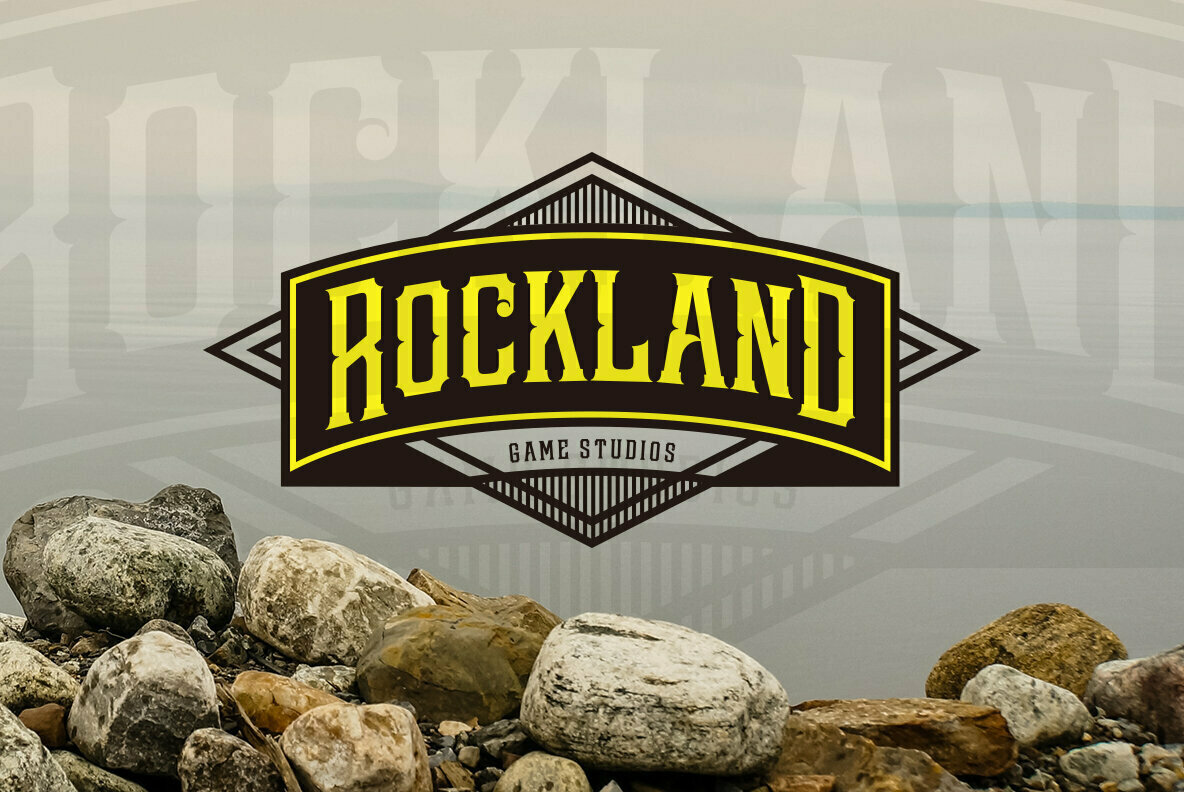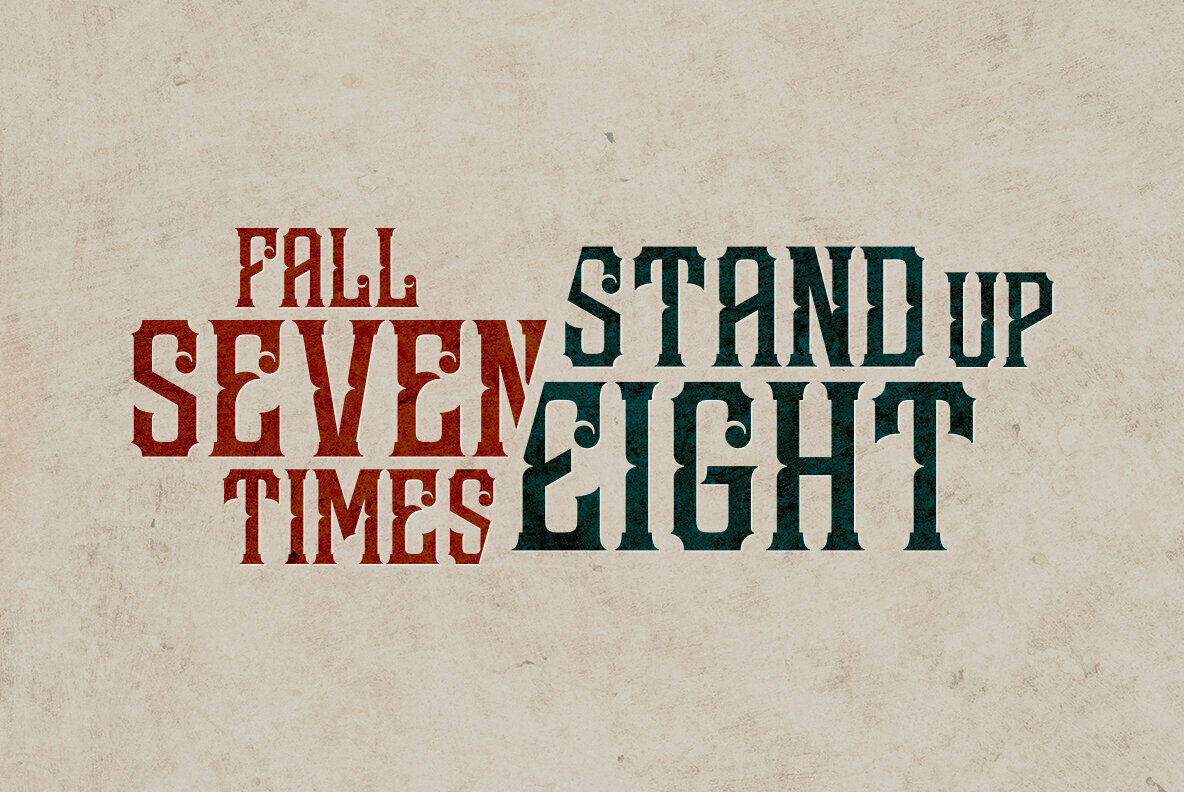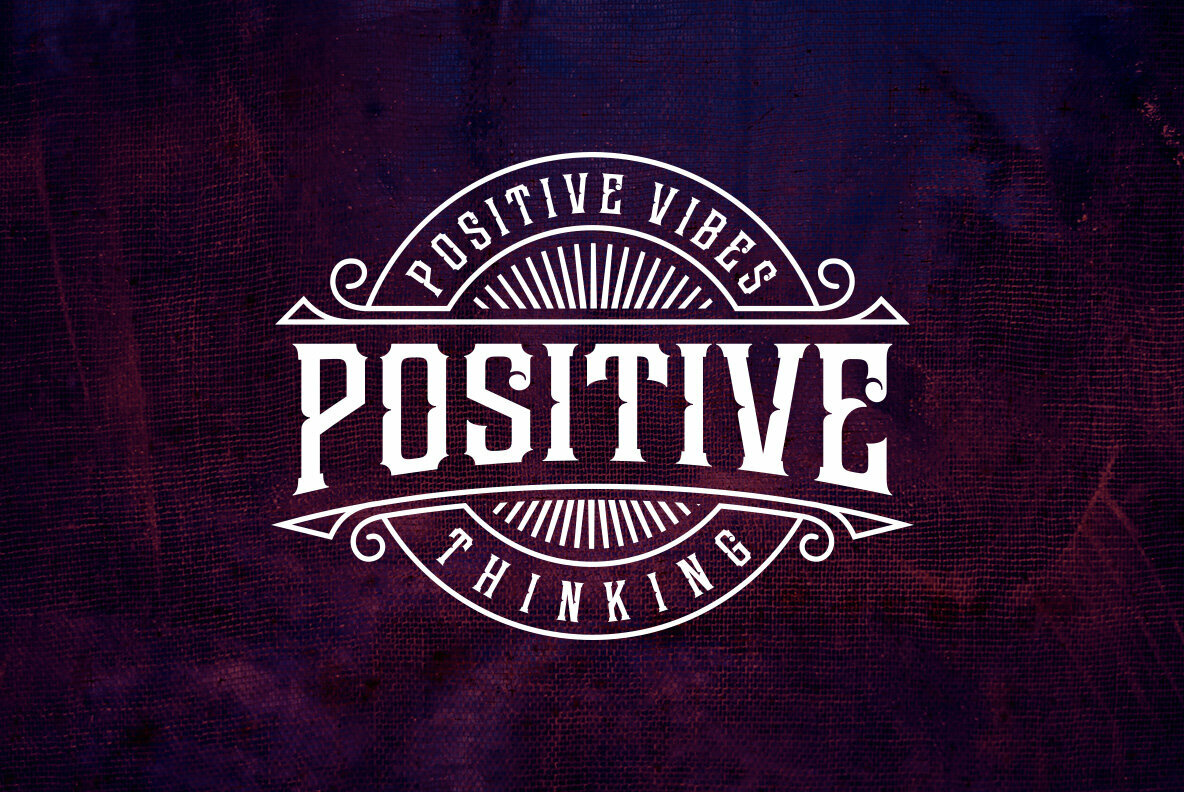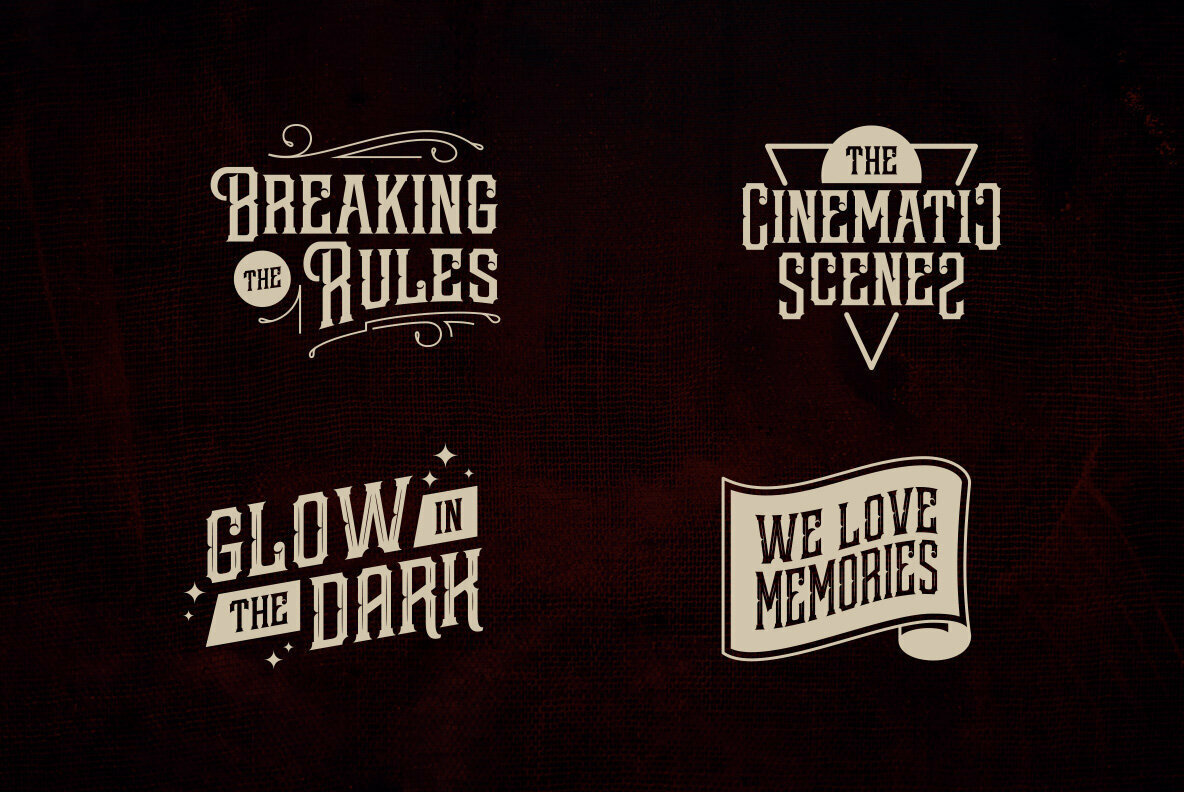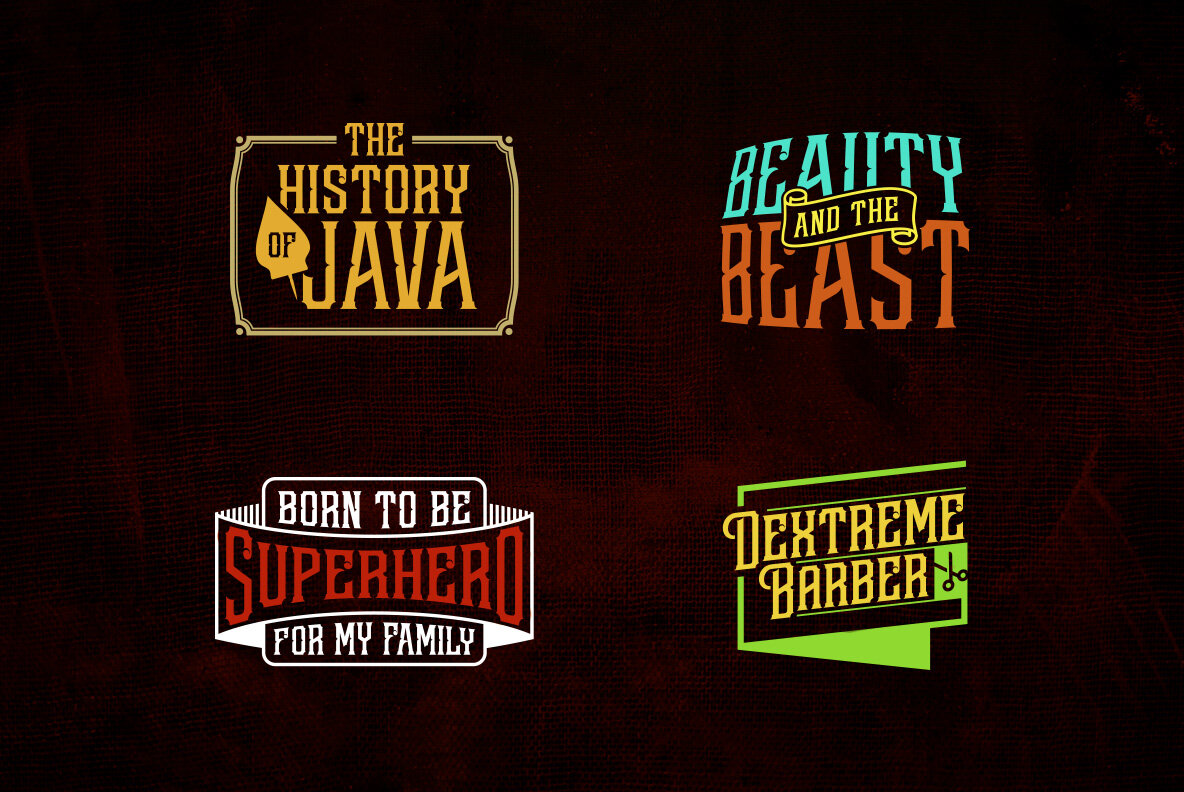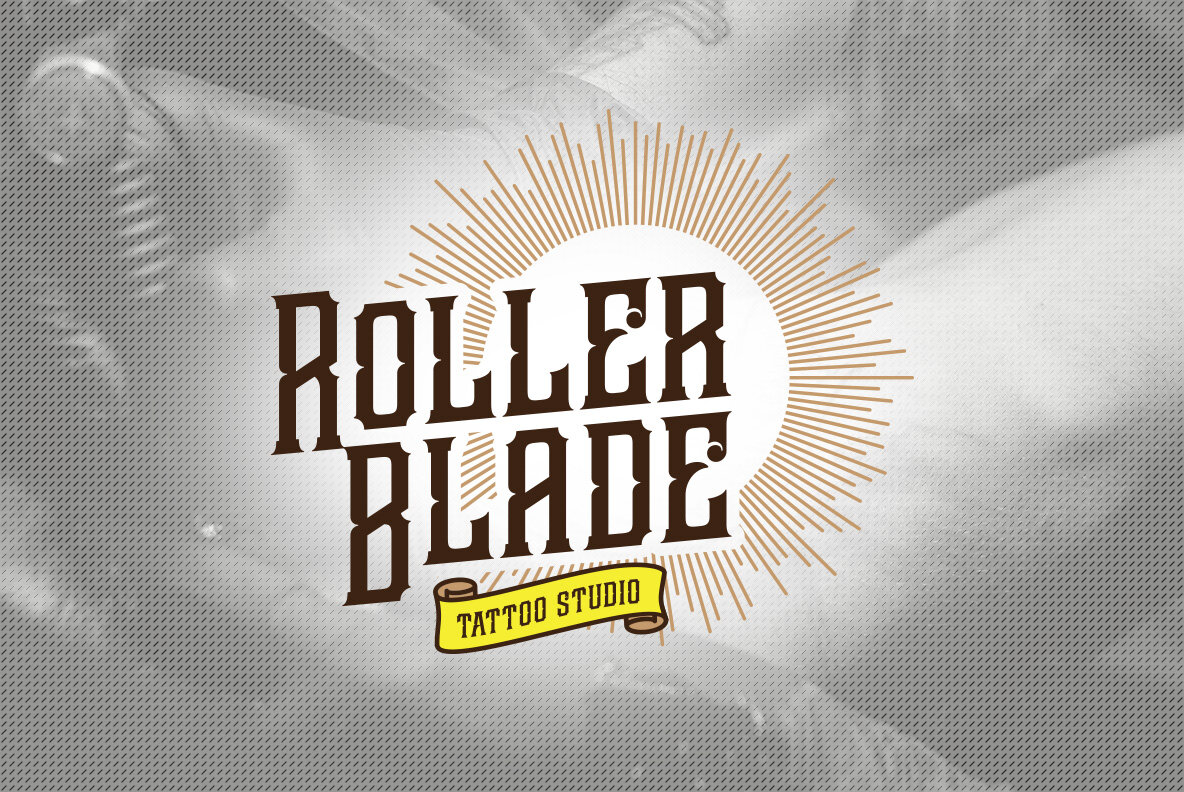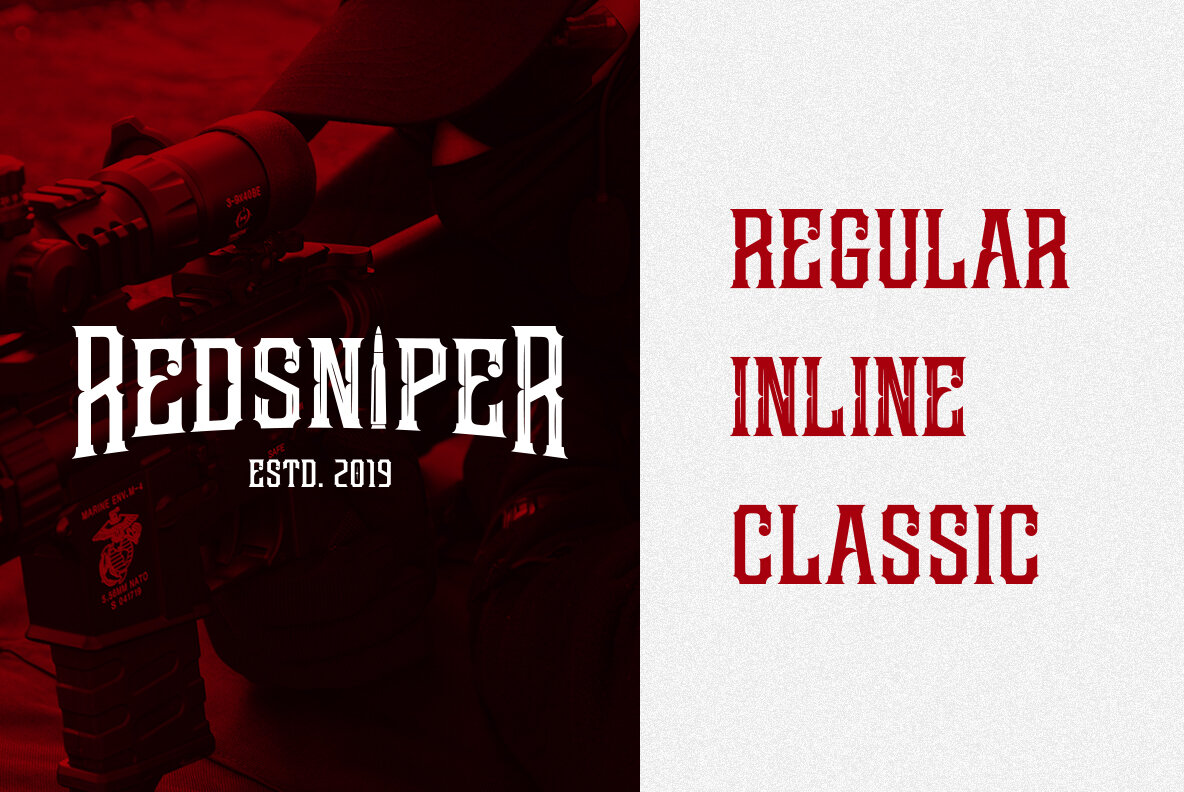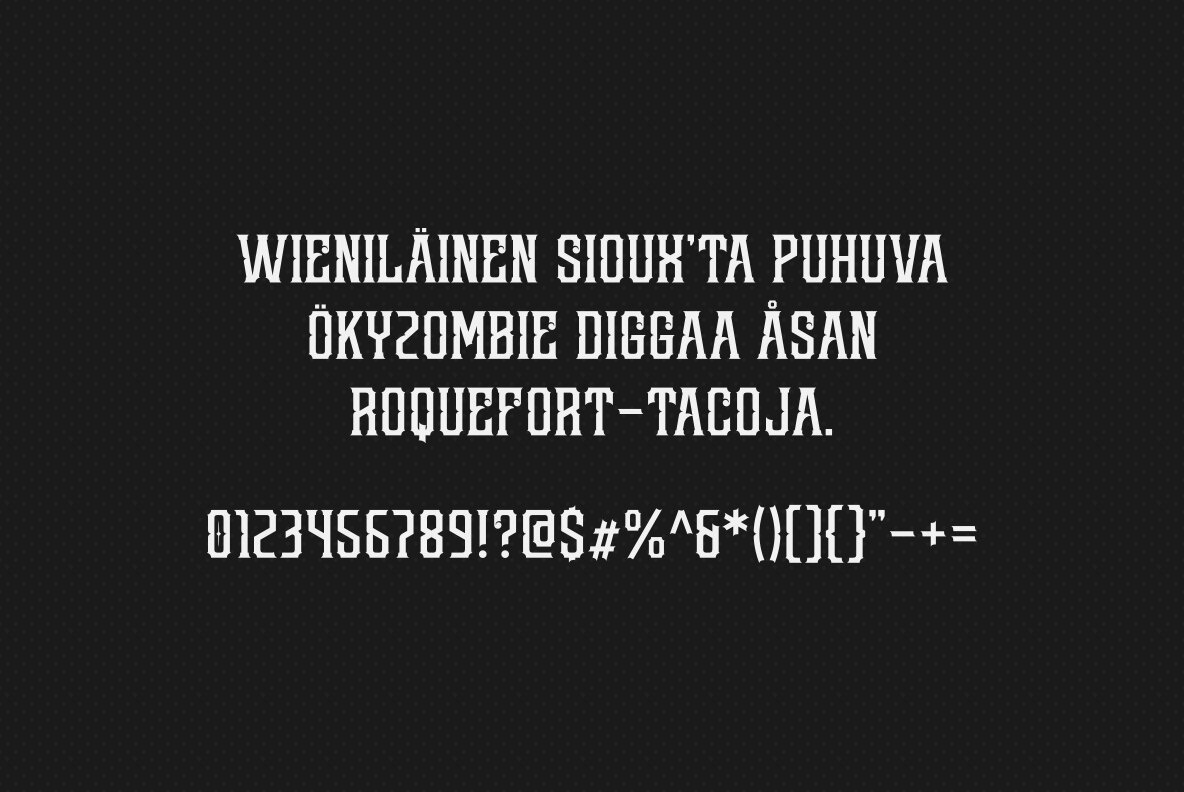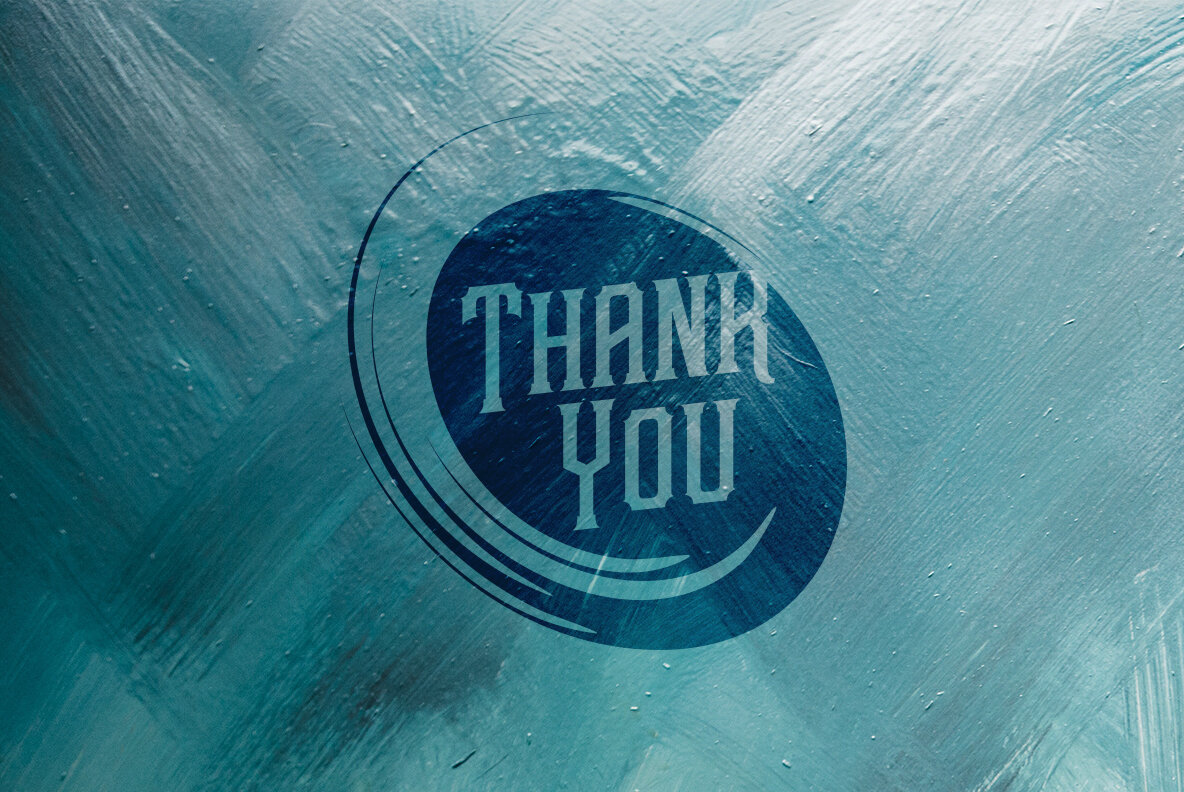
Redsniper Font
Redsniper Regular
Redsniper Classic
Redsniper Inline
Introducing Redsniper, a brand new font with a vintage look inspired by Victorian typography. Available in three styles with different variations including regular, inline and classic, making it easier to design a variety of typography.
Redsniper font is suitable for making label designs, posters, logotypes, signage etc. especially when you want a retro and old-fashioned design.